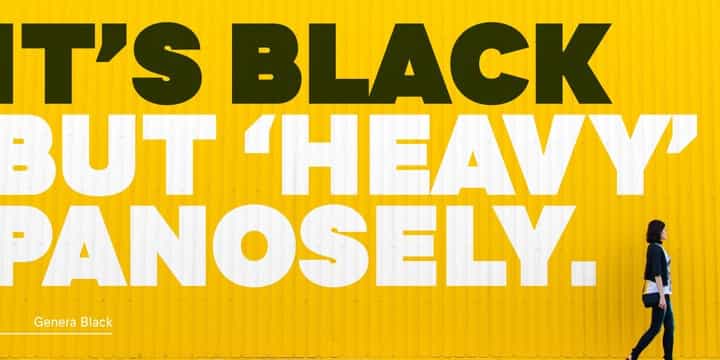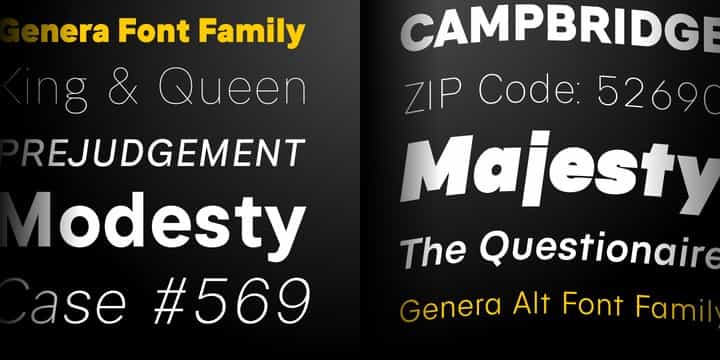
Genera is a clean sans serif typeface for creating solid branding that doesn’t shy away from traditionalism. They can be used in logos for magazines, videos, products’ packaging, headers and website designs, clothes and many other things.